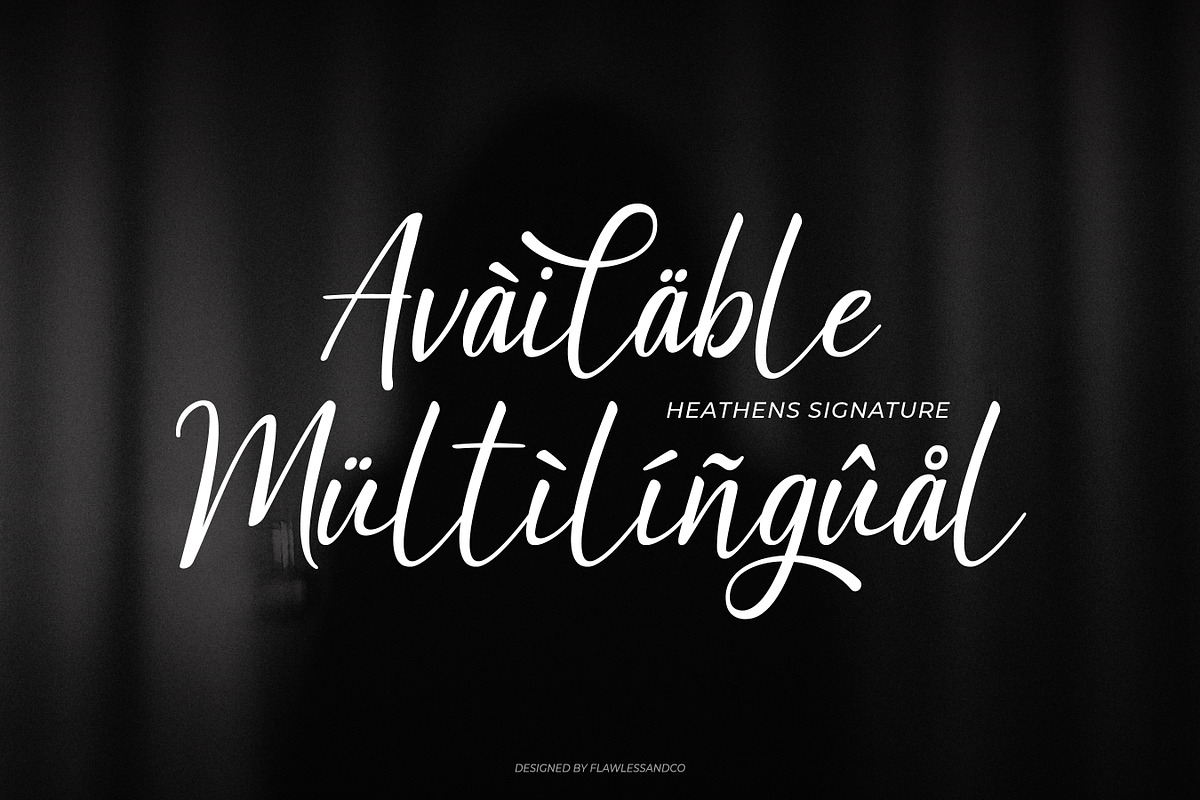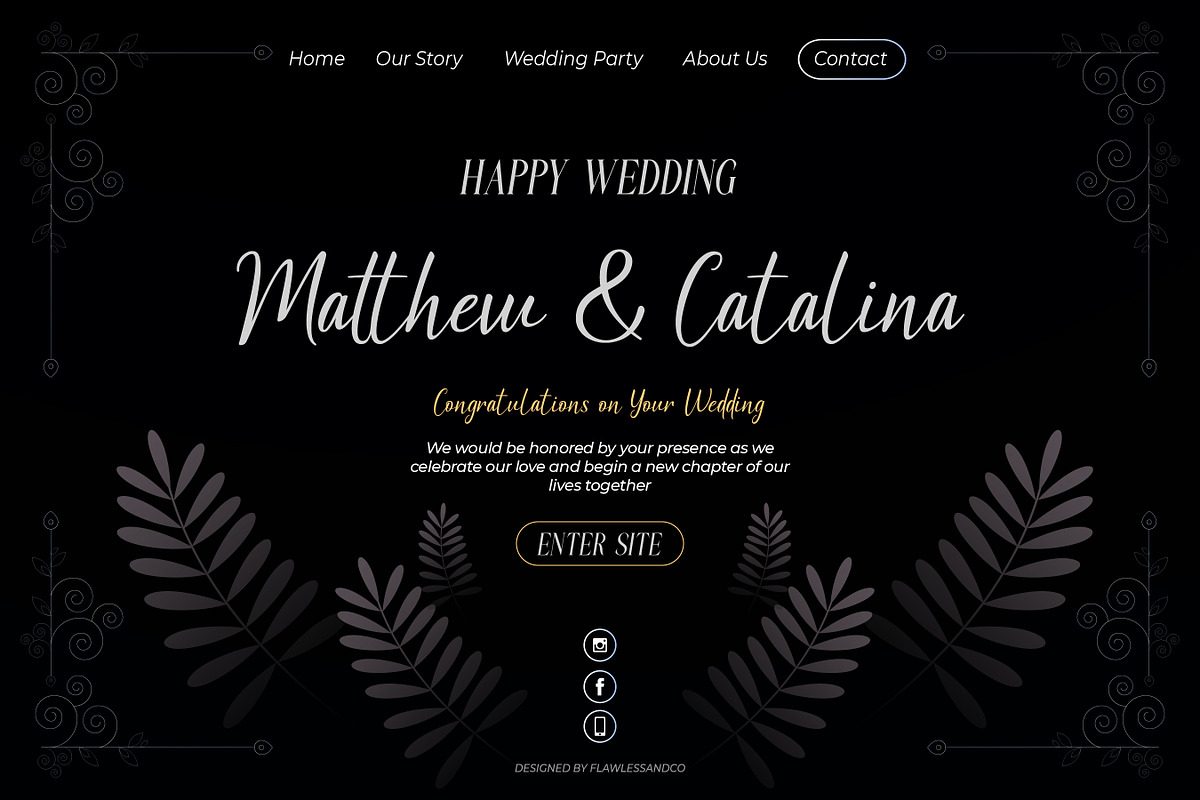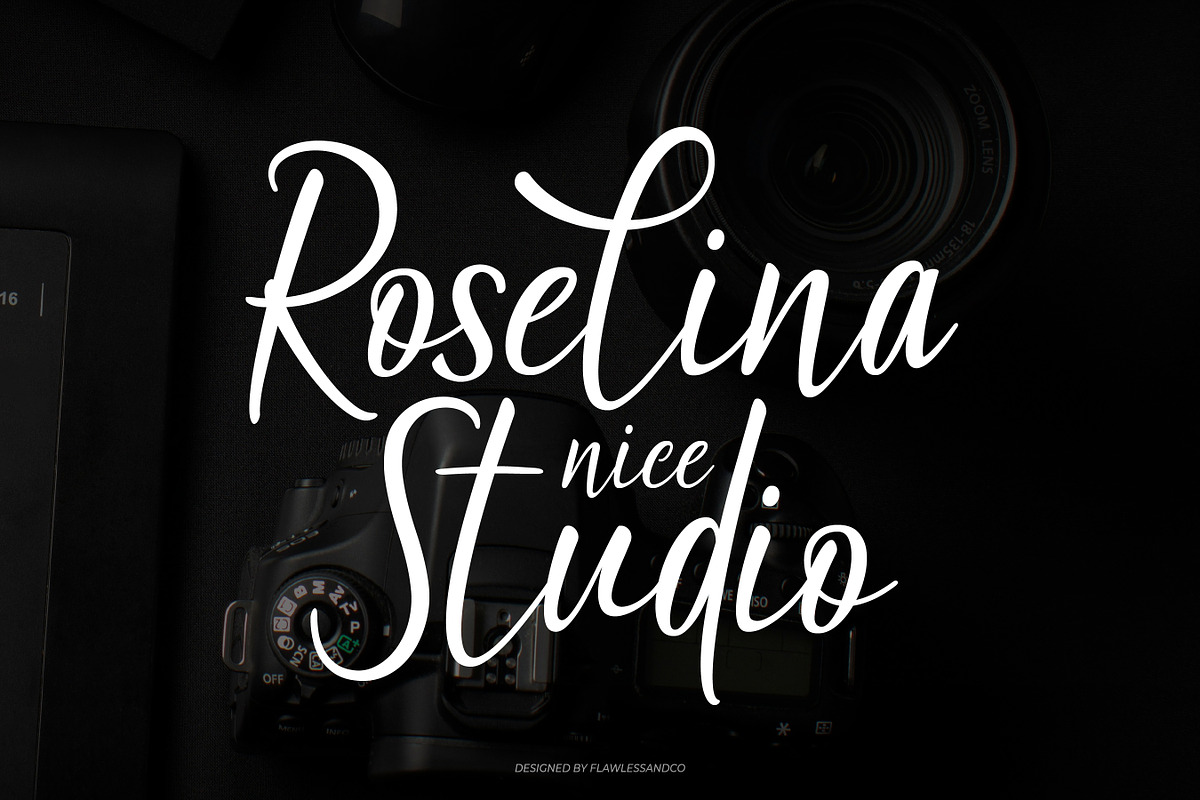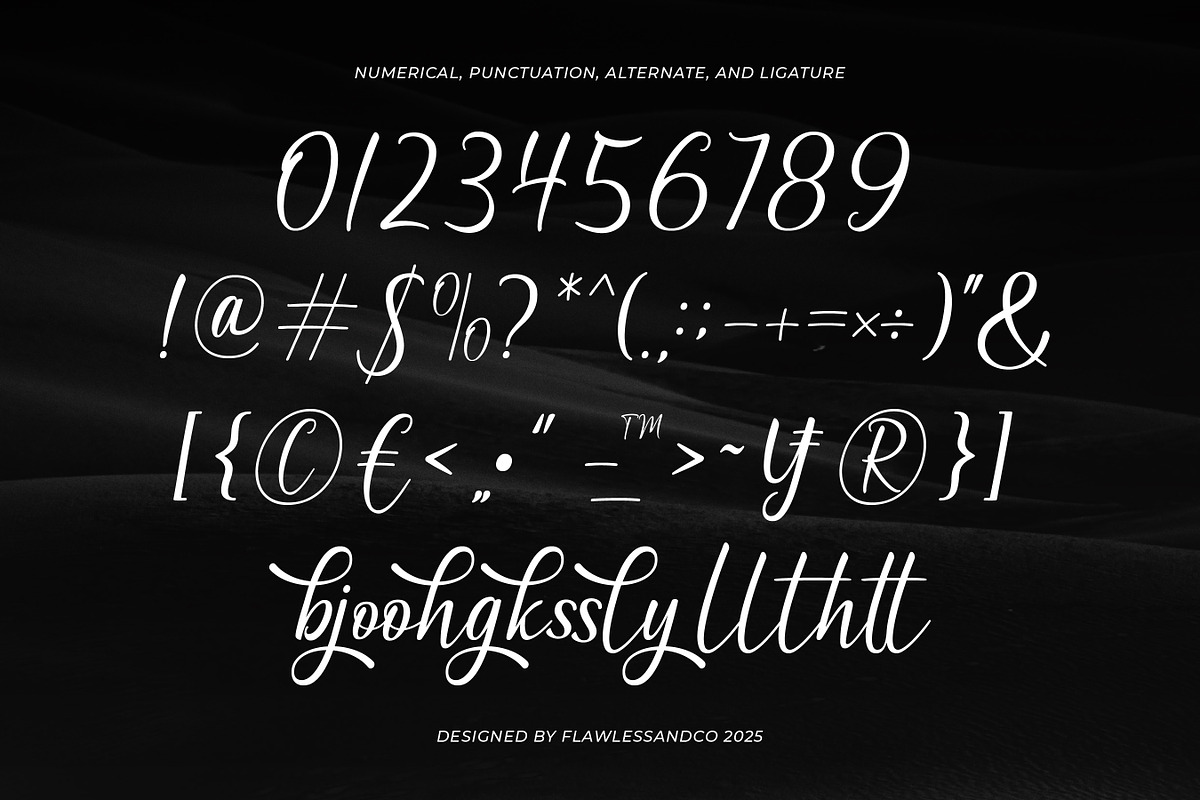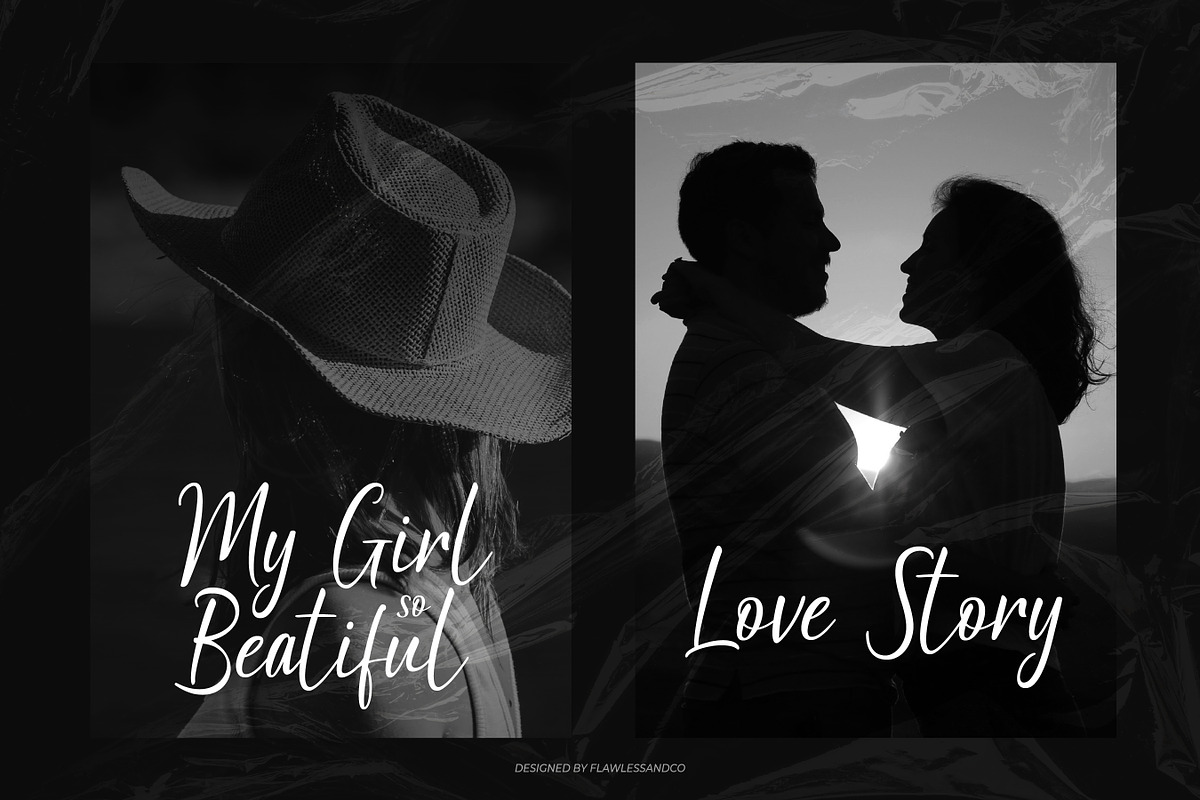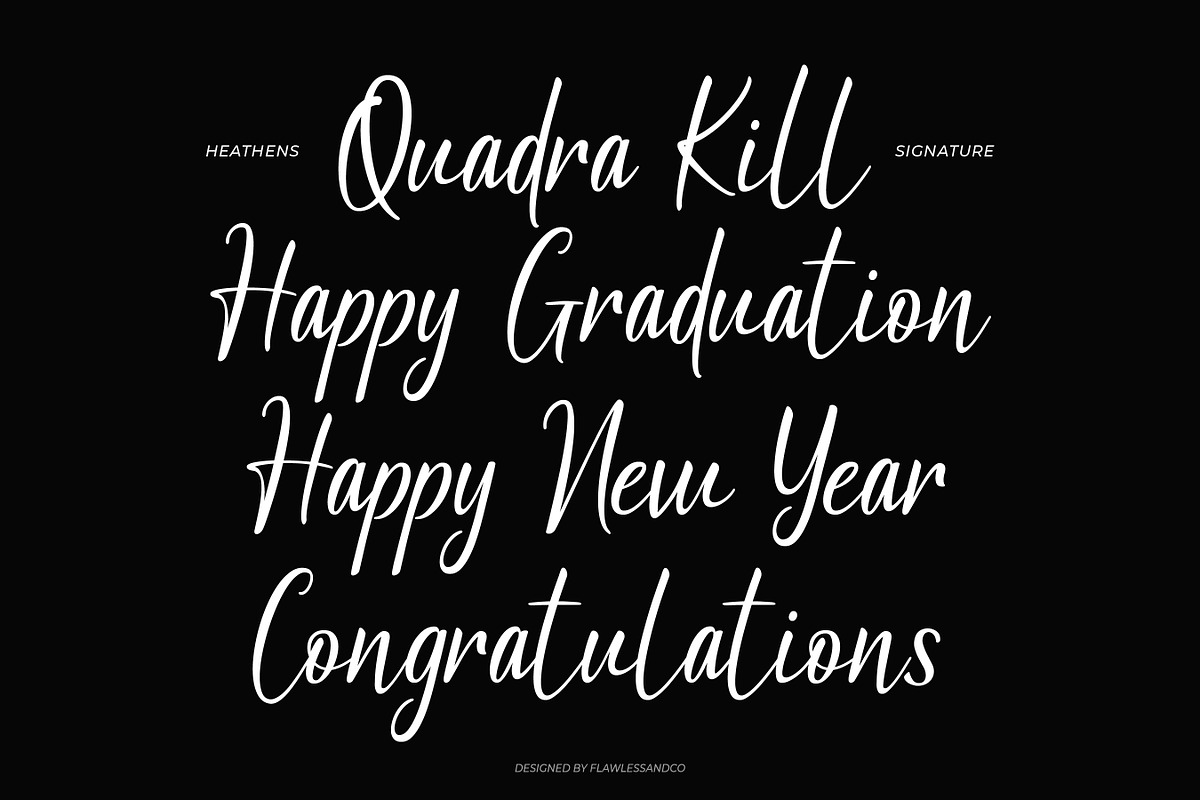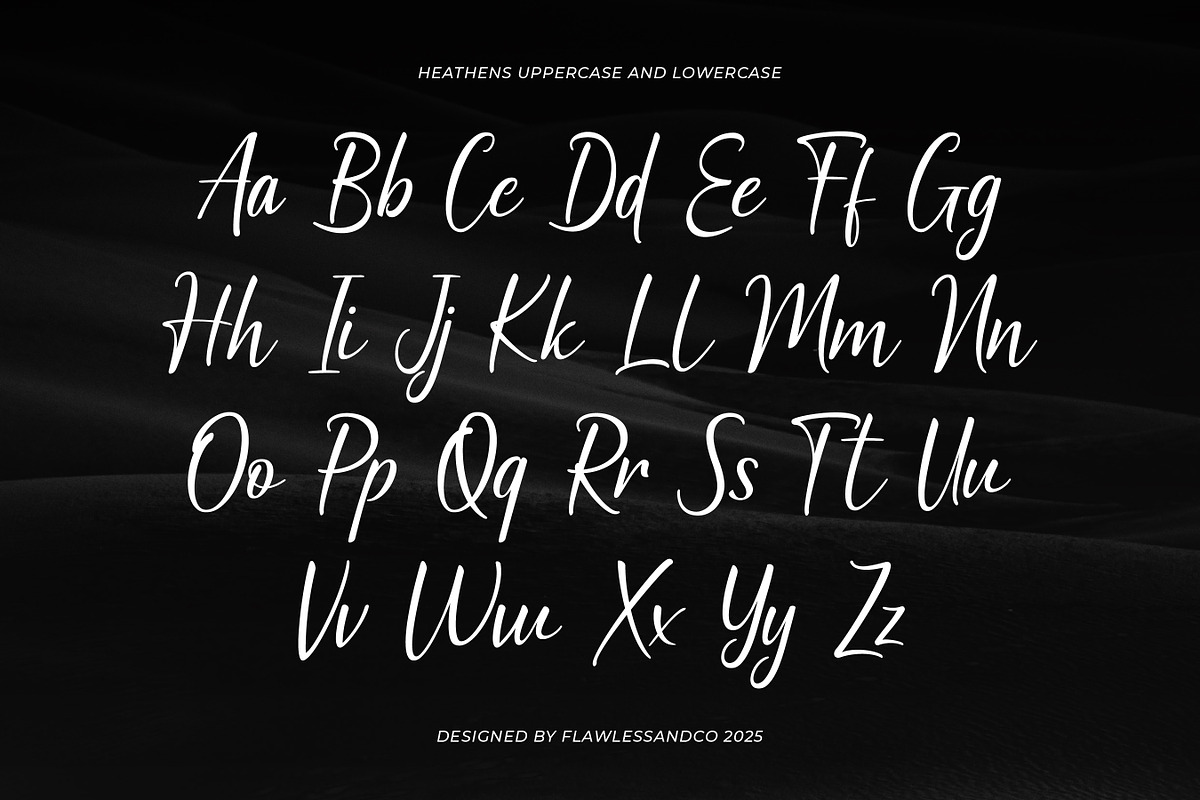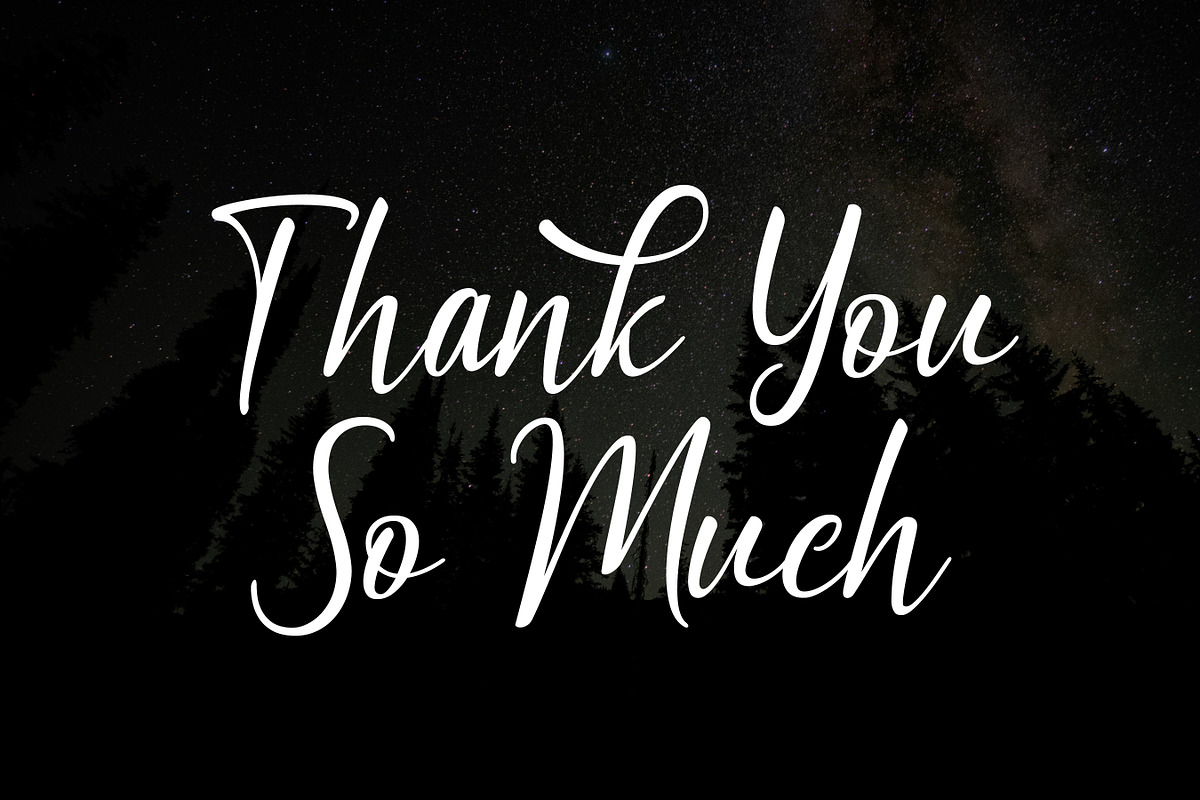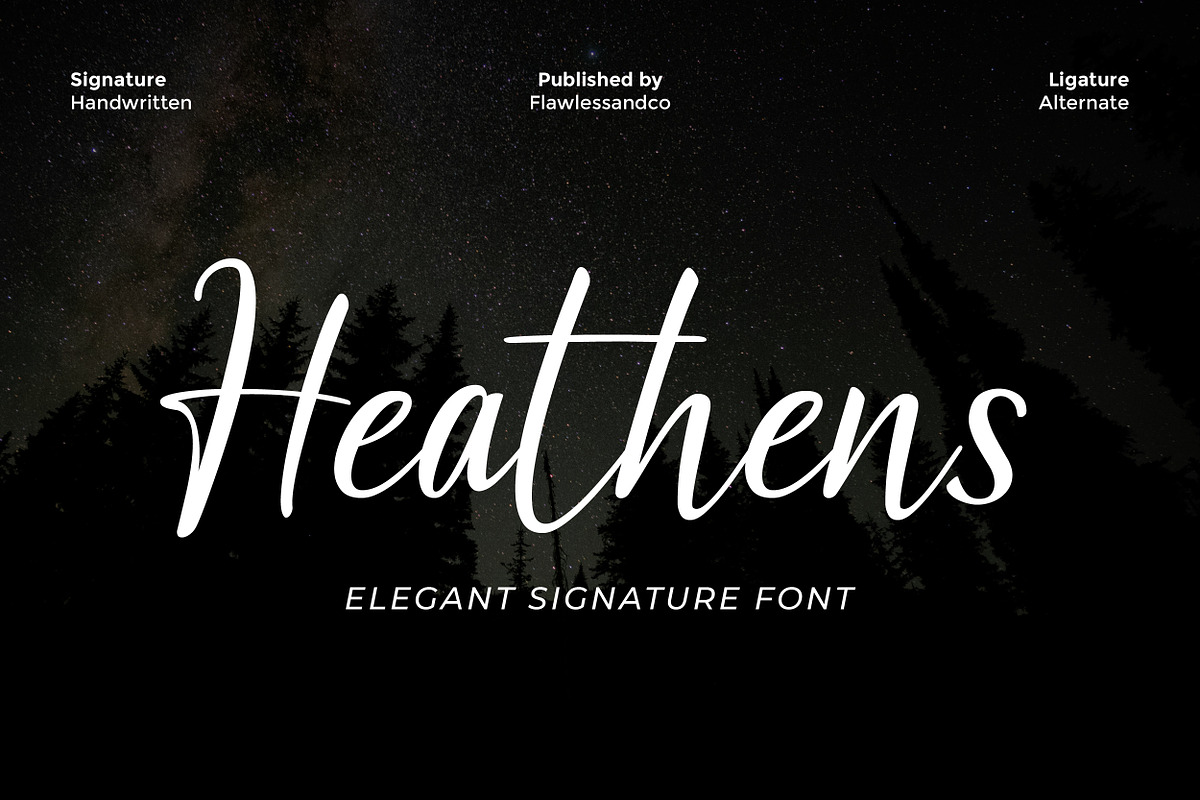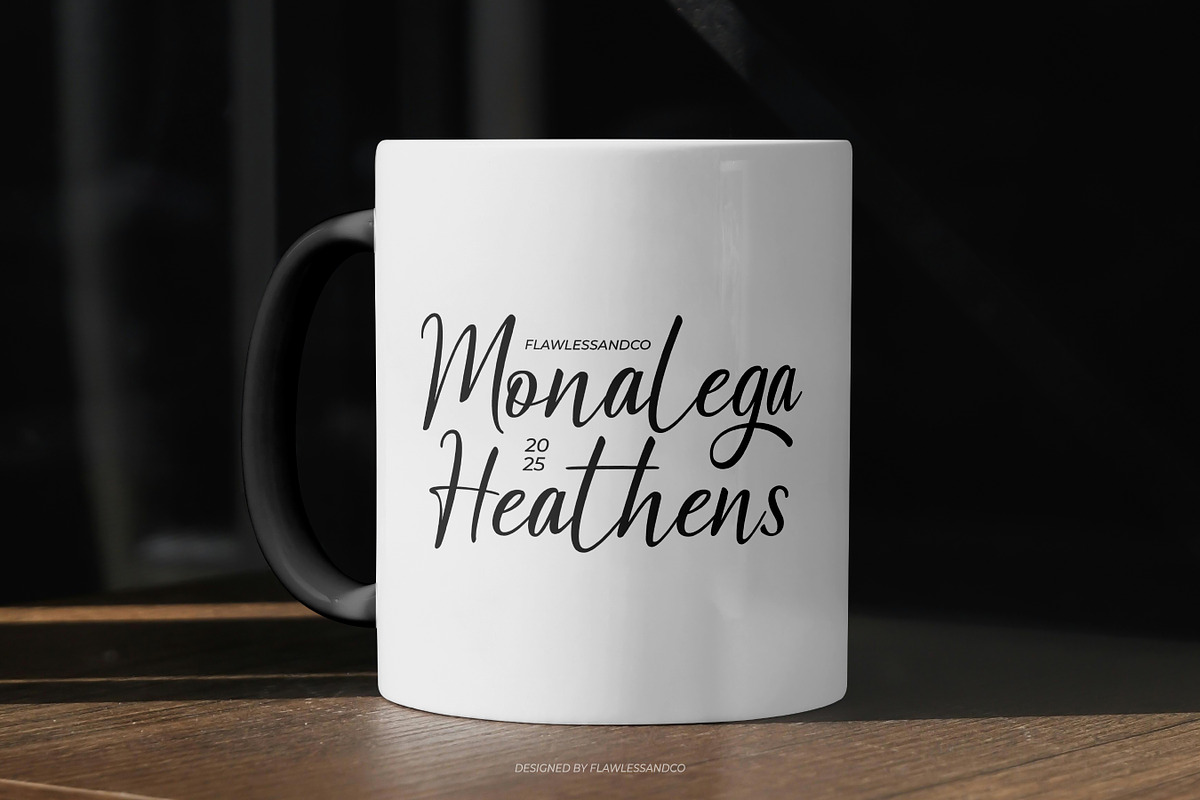
Heathens - Signature Handwritten Font
Heathens is an elegant handwritten signature font designed to bring a natural, personal, and luxurious feel to your designs. With smooth strokes, graceful curves, and a flowing handwritten character, this font delivers a refined yet authentic signature style that feels timeless and expressive. Perfect for designers who want to create a strong emotional connection, Heathens works beautifully for branding projects that require elegance, intimacy, and sophistication. Its handwritten charm makes every word feel personal, stylish, and effortlessly premium.
Who Should Use Heathens?
Heathens is perfect for creatives and brands who want to express elegance, personality, and authenticity through handwritten typography. It’s ideal for designers, entrepreneurs, and content creators looking to add a refined signature touch to their projects.
Why Choose Heathens for “Brand and Logo” Projects?
Heathens is a great choice for brand and logo projects that need an elegant and personal handwritten style. Its smooth and natural strokes give logos a stylish, authentic, and professional look, making brands feel more unique and memorable.
Suitable for:
- Signature logos
- Luxury branding
- Wedding invitations
- Photography branding
- Fashion & beauty brands
- Social media quotes
- Personal branding
- Packaging & labels